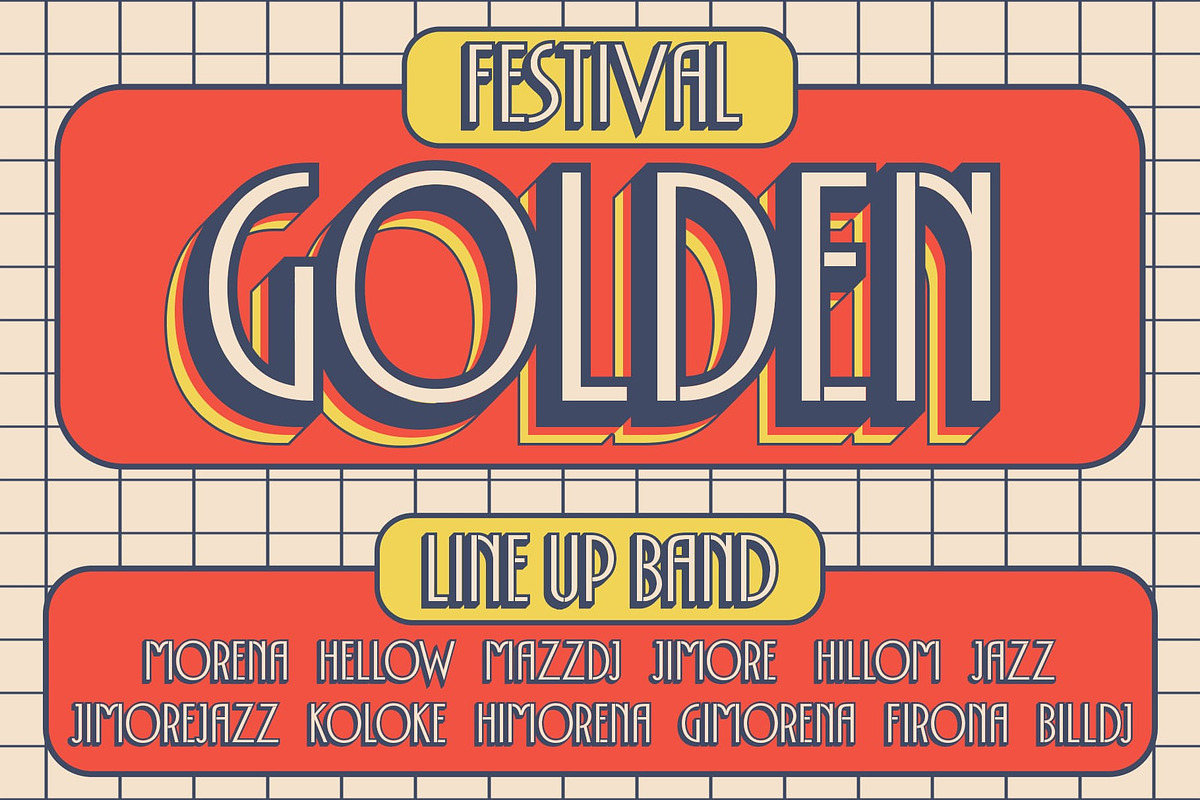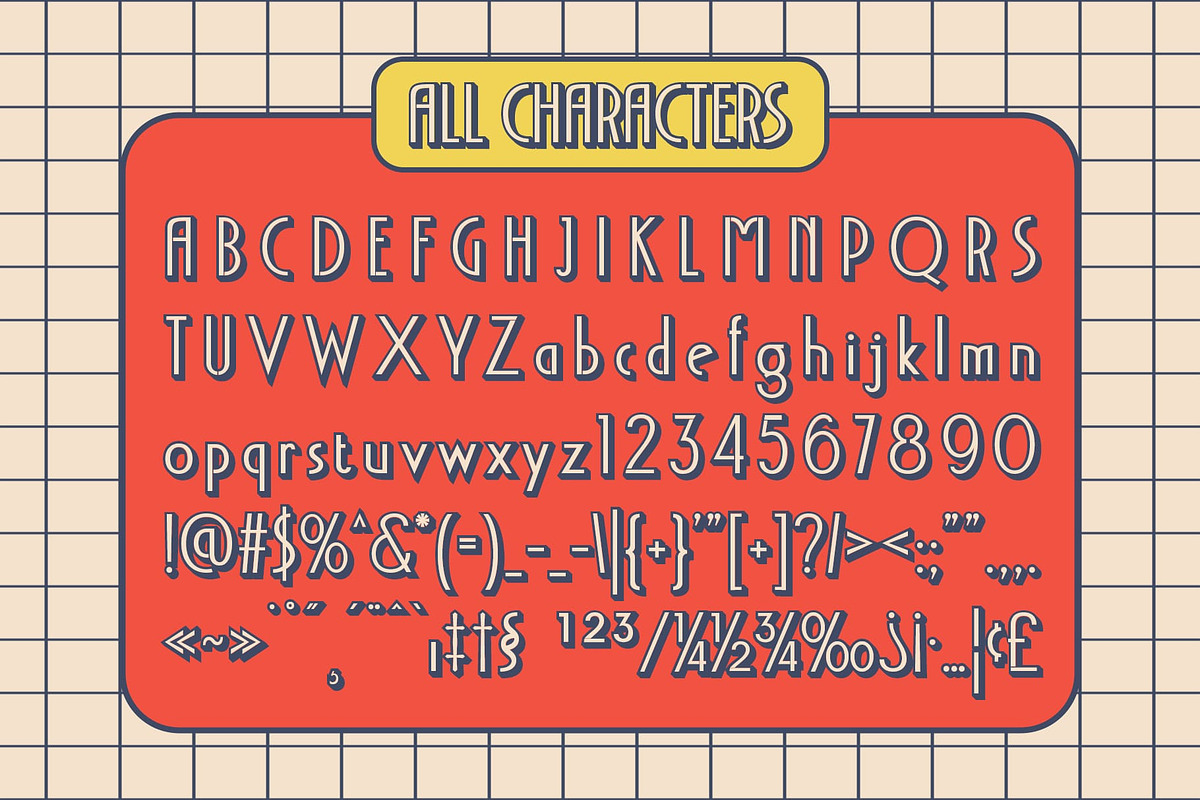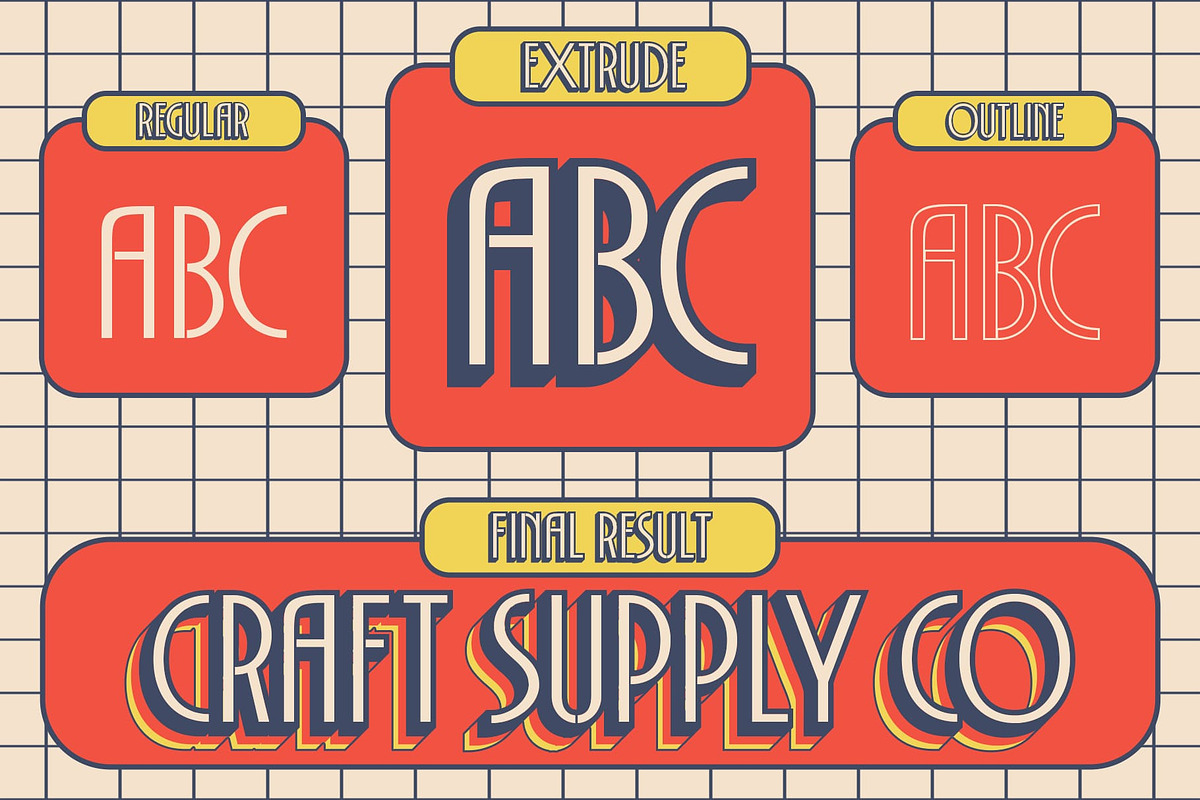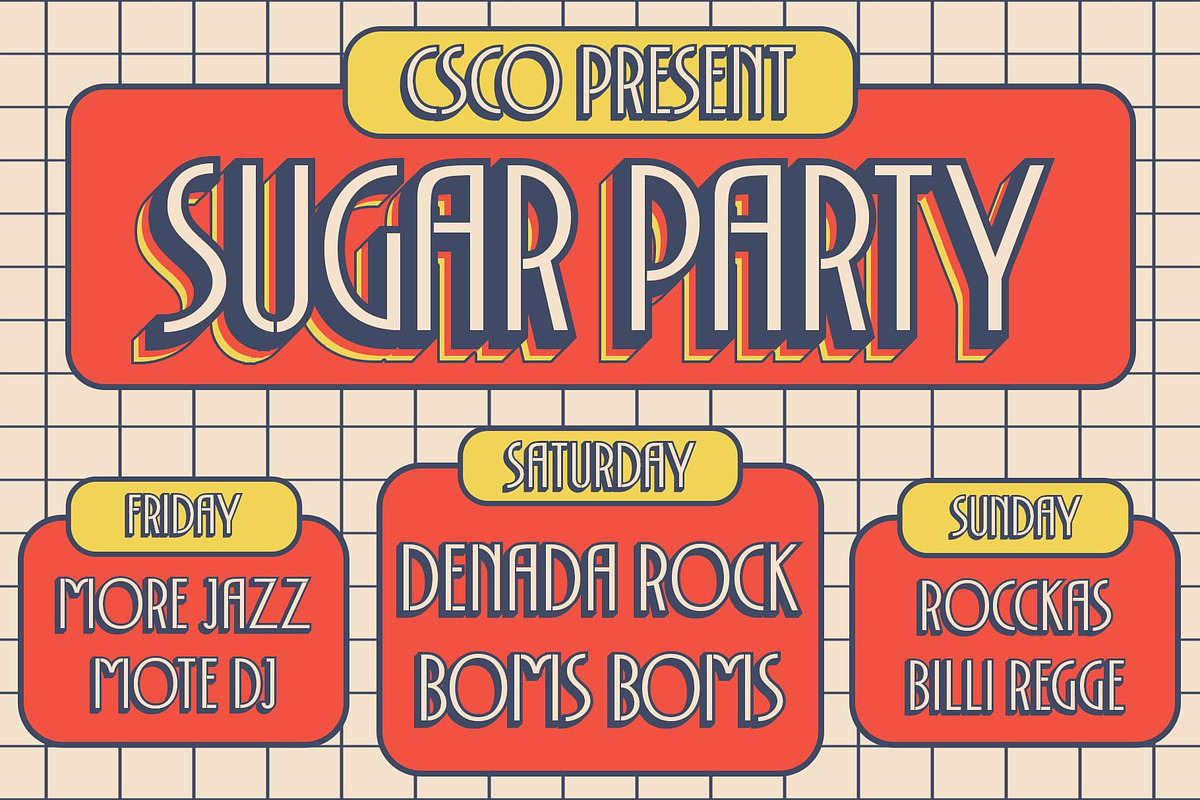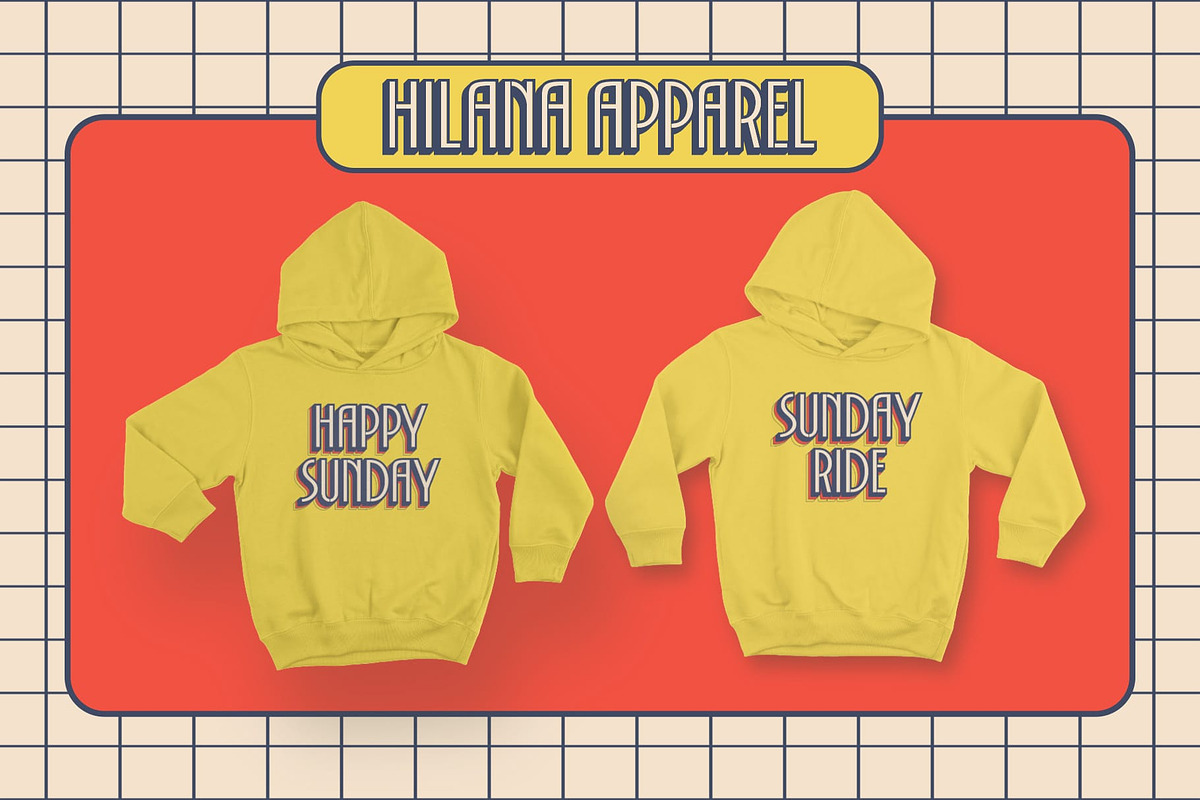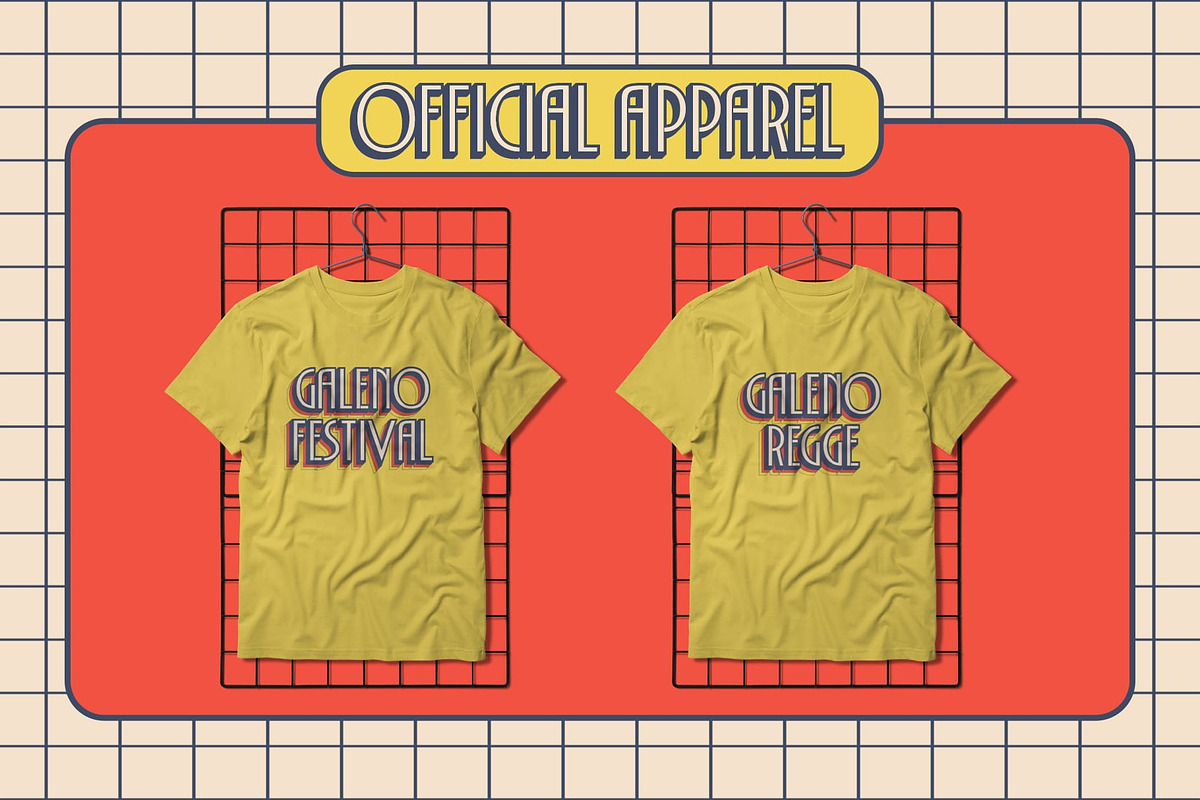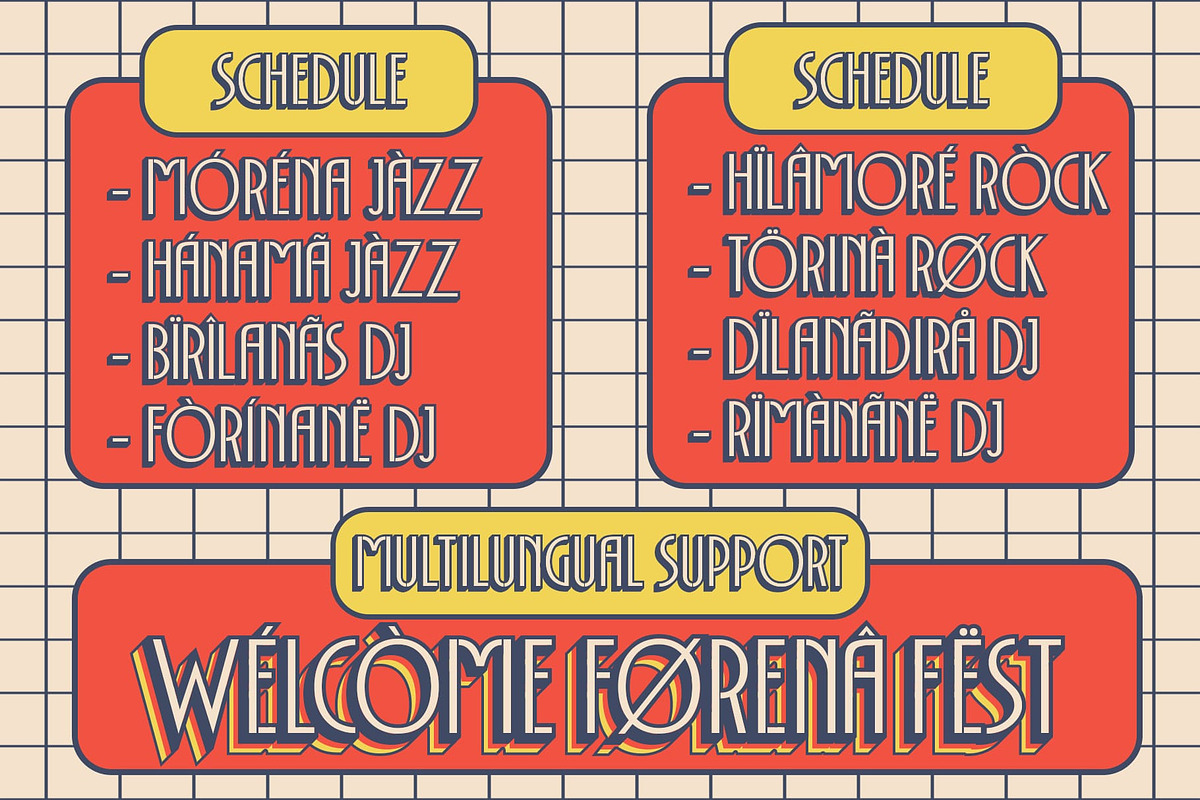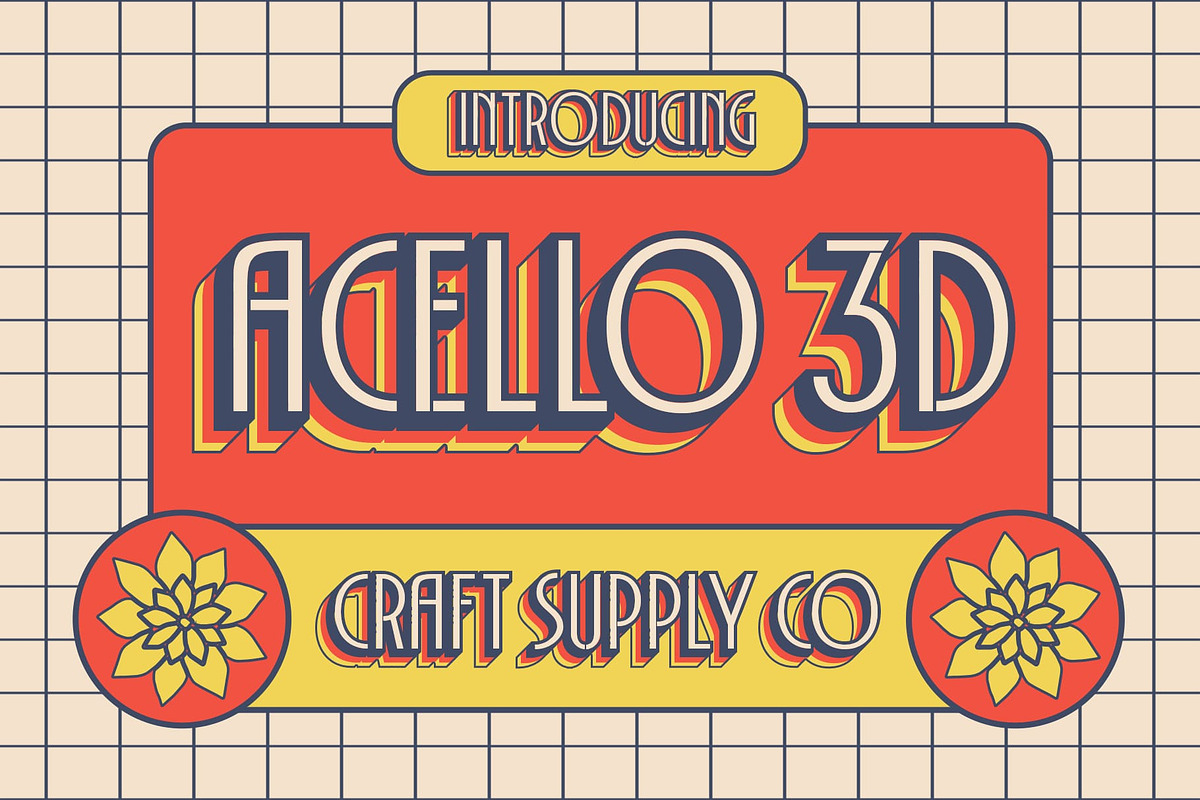
Acello 3D
Acello 3D: A Contemporary Take on Art Deco
Streamlined Elegance Acello 3D presents a sleek sans serif design with low-contrast strokes and condensed proportions. Inspired by the iconic Art Deco style, it exudes sophistication and modernity.
Art Deco Influence Drawing inspiration from the Art Deco movement, Acello 3D showcases geometric shapes, clean lines, and minimalist aesthetics. Its design pays homage to the elegance and glamour of the 1920s and 1930s.
Condensed and Refined With its condensed form, This font maximizes space efficiency without sacrificing legibility. Each letter is meticulously crafted to maintain clarity and readability, even in tight spaces.
Contemporary Interpretation This font offers a contemporary interpretation of Art Deco typography, blending vintage charm with modern sensibilities. Its low-contrast strokes and 3D effects add depth and visual interest to any design project.
Timeless Sophistication This font is a font that embodies timeless sophistication with its sleek, condensed design and Art Deco inspiration. Whether used in branding, editorial design, or digital interfaces, it adds a touch of elegance and refinement to any project. Step into the world of Acello 3D and elevate your designs with its unique blend of vintage and contemporary aesthetics.